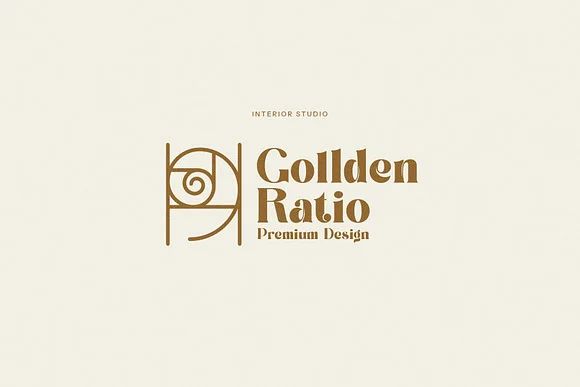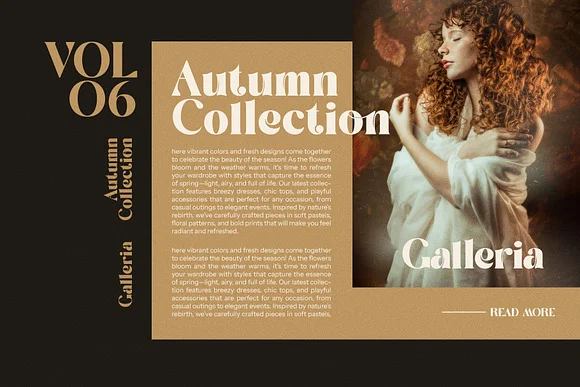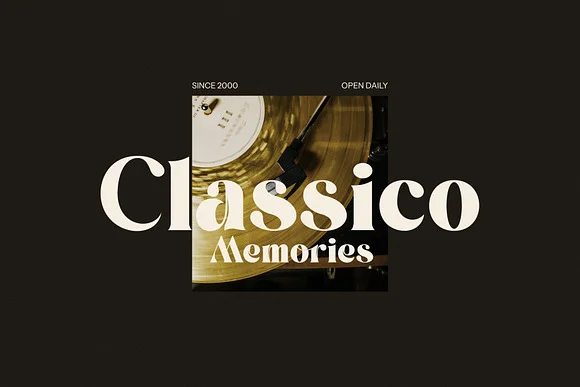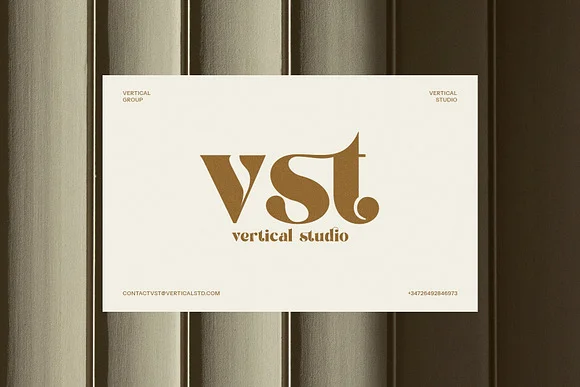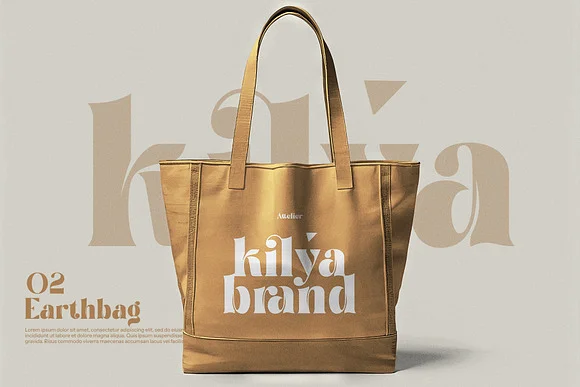
Gliran Elegant Serif Font
Gliran Elegant Serif offers a fresh typographic approach that balances visual appeal with exceptional legibility.
Add Gliran Elegant Serif to your toolkit and discover how it elevates everything from quick social posts to complex brand identities.